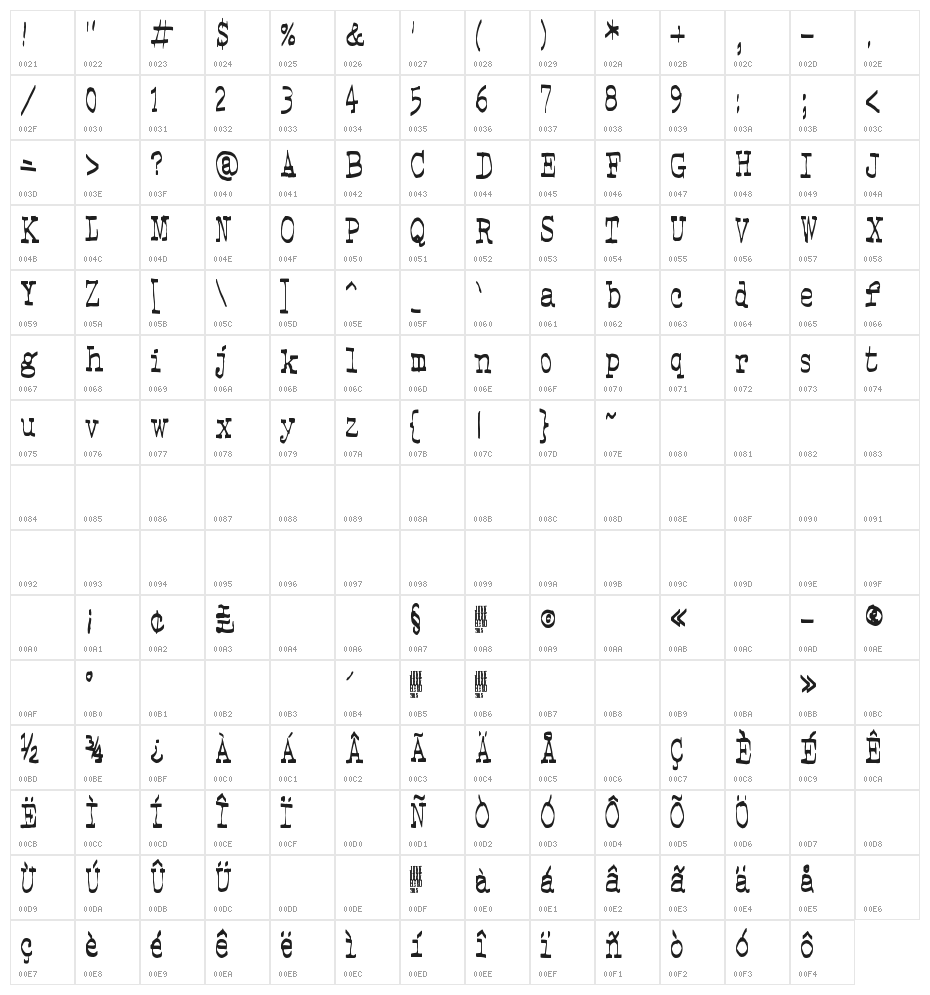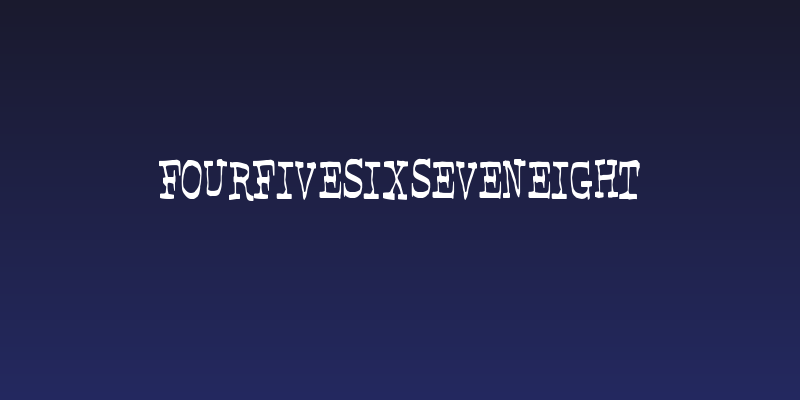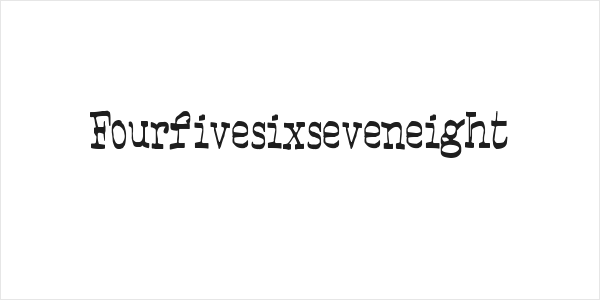
Fourfivesixseveneight Font
Fourfivesixseveneight Description
This font features a bold and playful style with a hand-drawn appearance. The characters are slightly irregular, giving it a whimsical and informal feel. The uppercase letters are robust and prominent, while the lowercase letters maintain a consistent flow with unique quirks, such as the looped 'g' and the distinctive 'e'. Numbers are equally bold, ensuring readability. Special characters are creatively designed, maintaining the overall playful aesthetic. The font's uneven strokes and varying thickness add to its charm, making it ideal for projects that require a touch of personality and creativity.